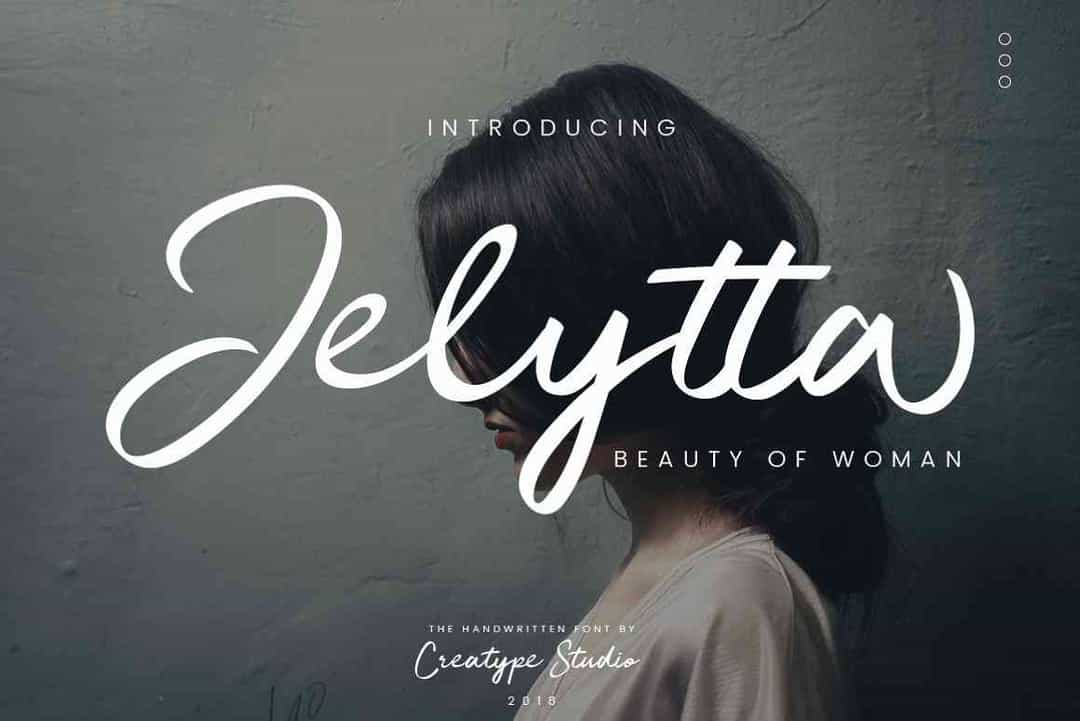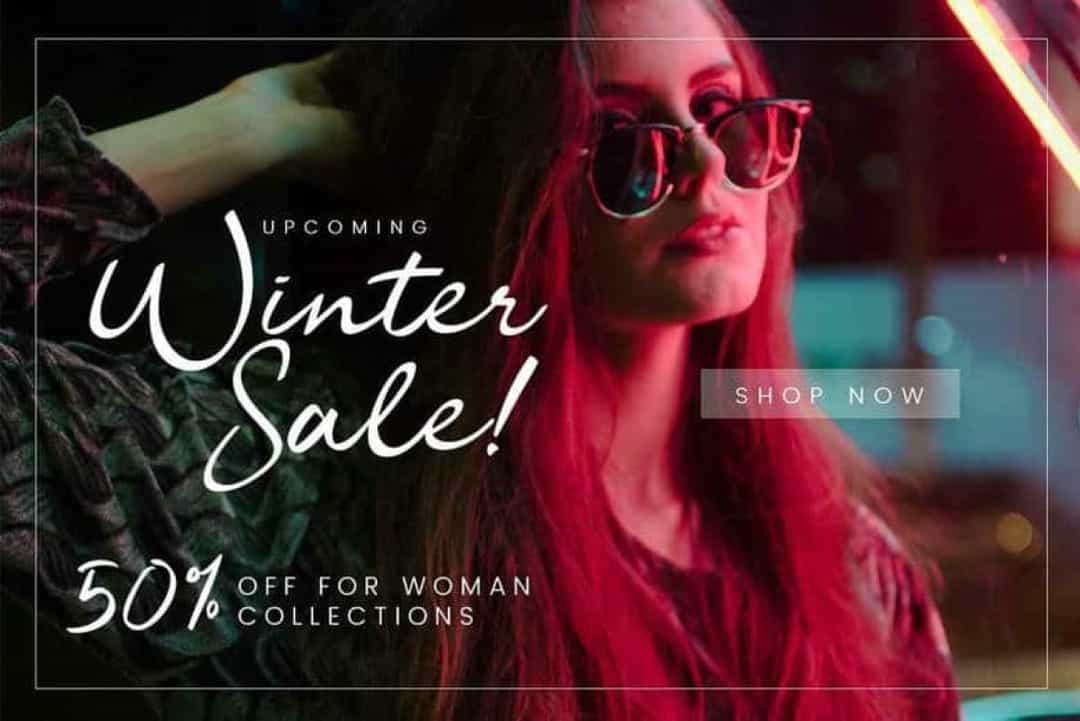
Jelytta is derived from the word that defines the beauty of a woman. This font is created to portray the beauty of the woman as they are soft and this make the font to be classy, elegant with the softly curve that makes the project to look fabulous and amazing.